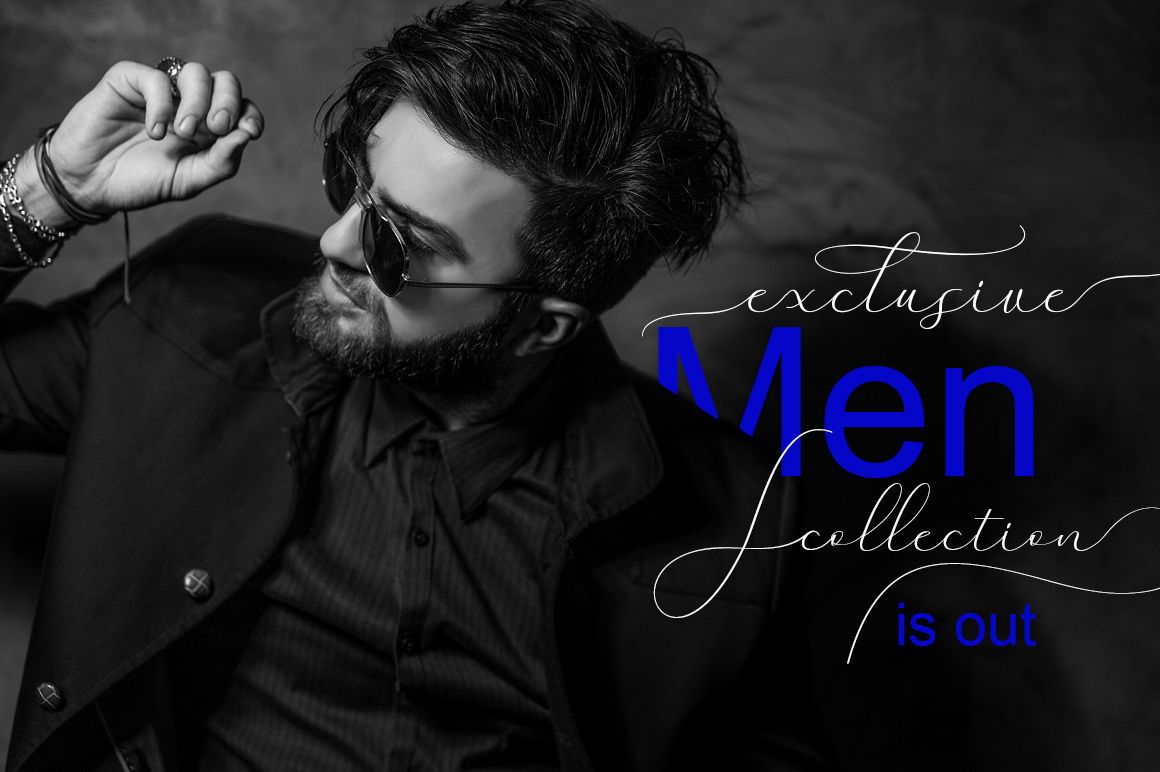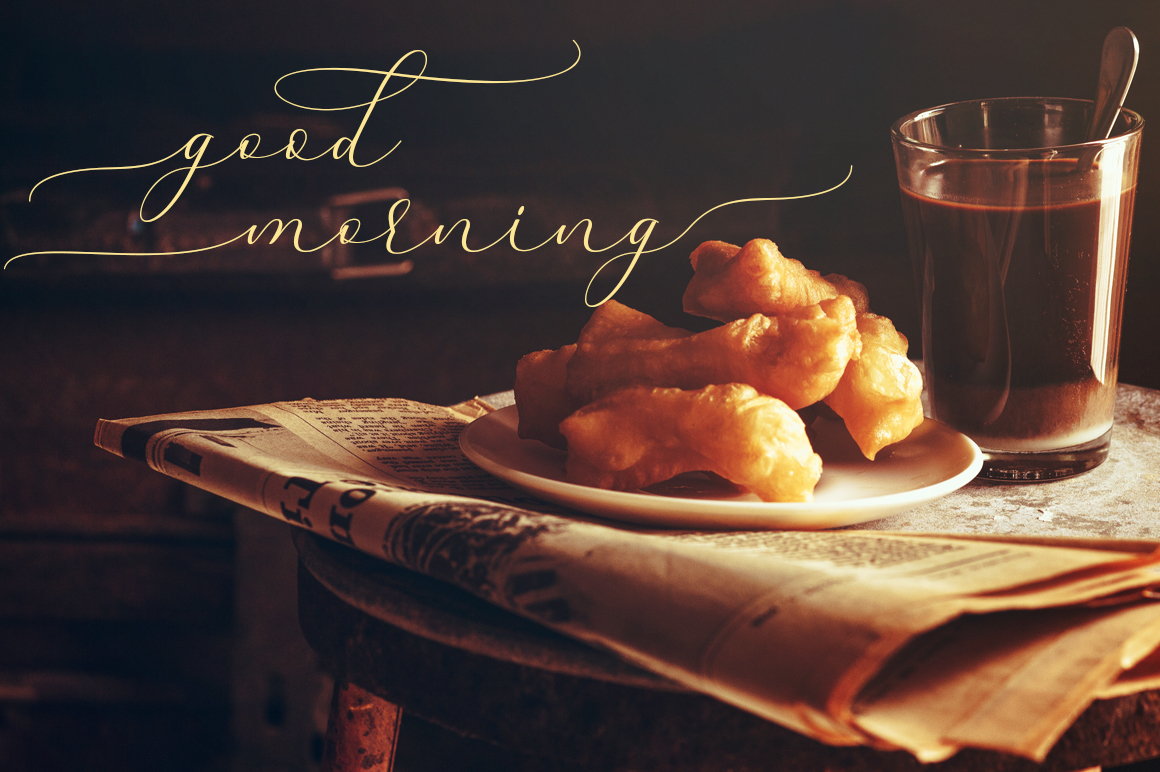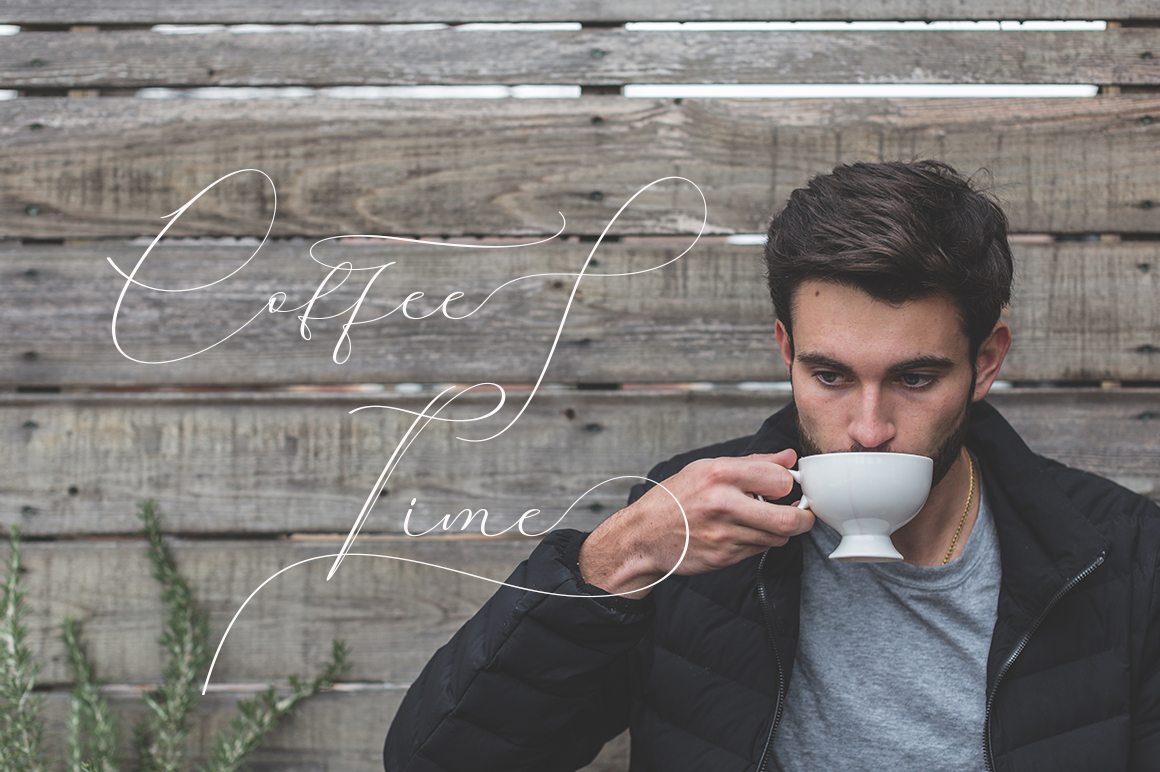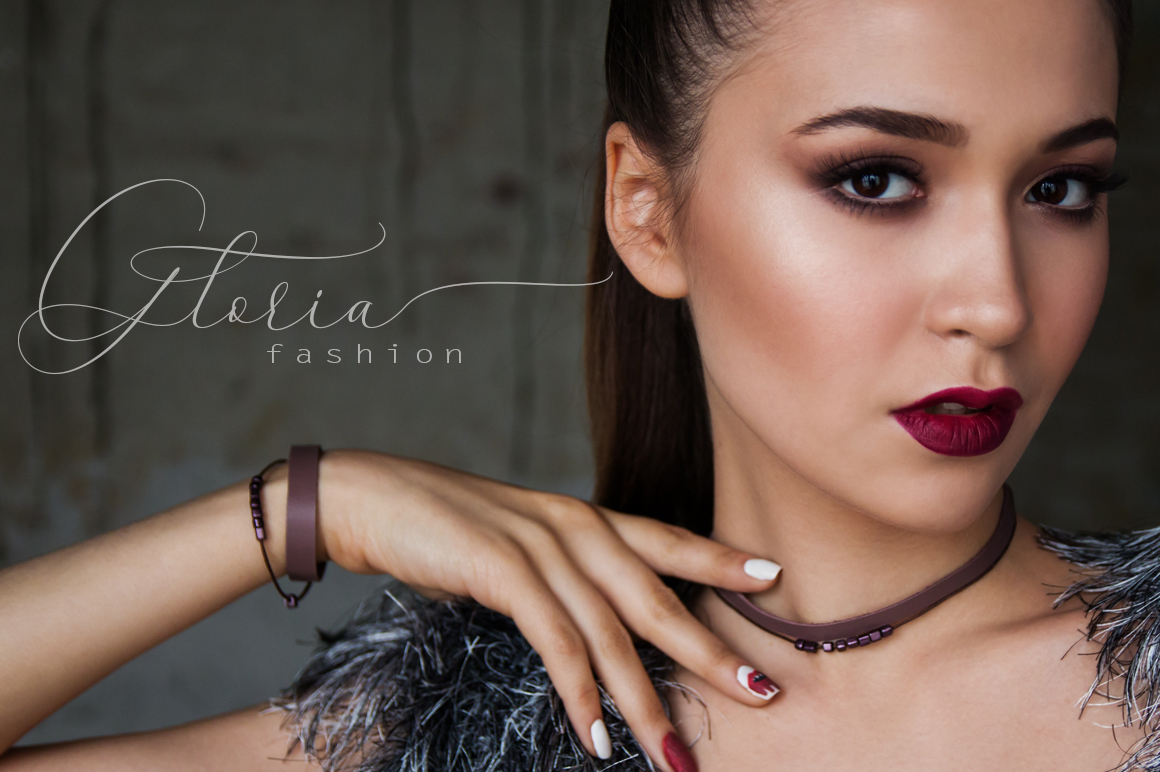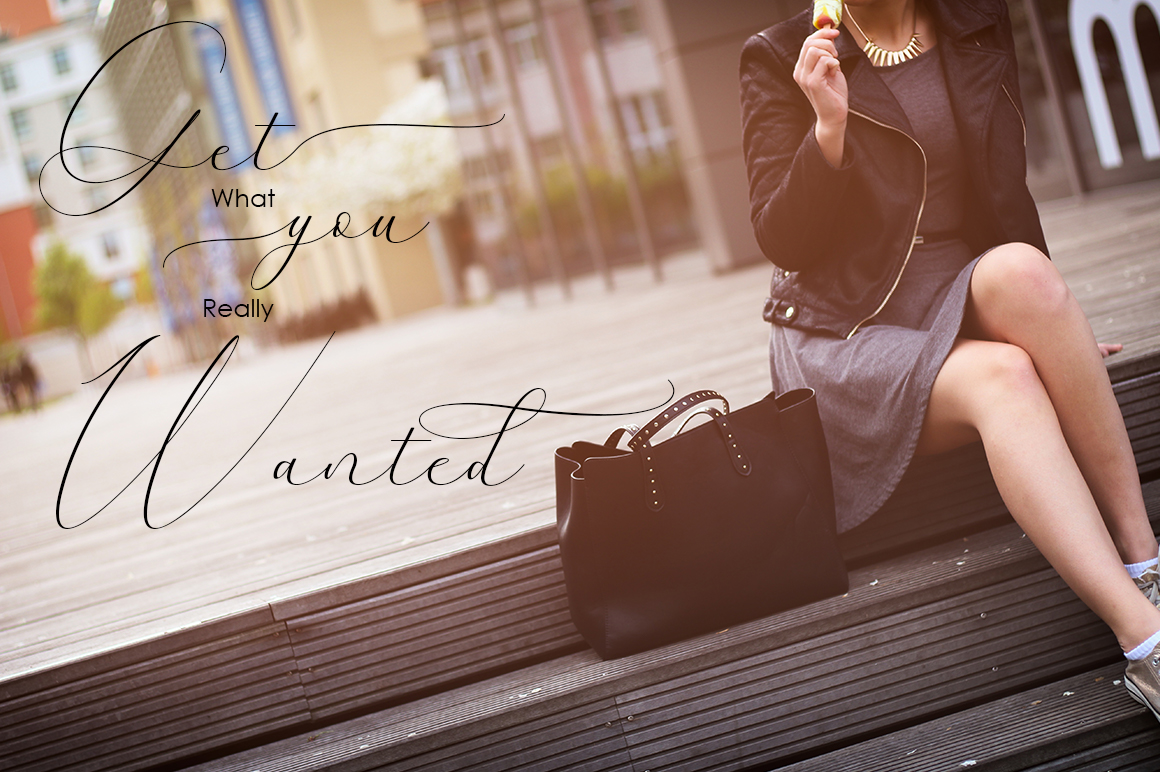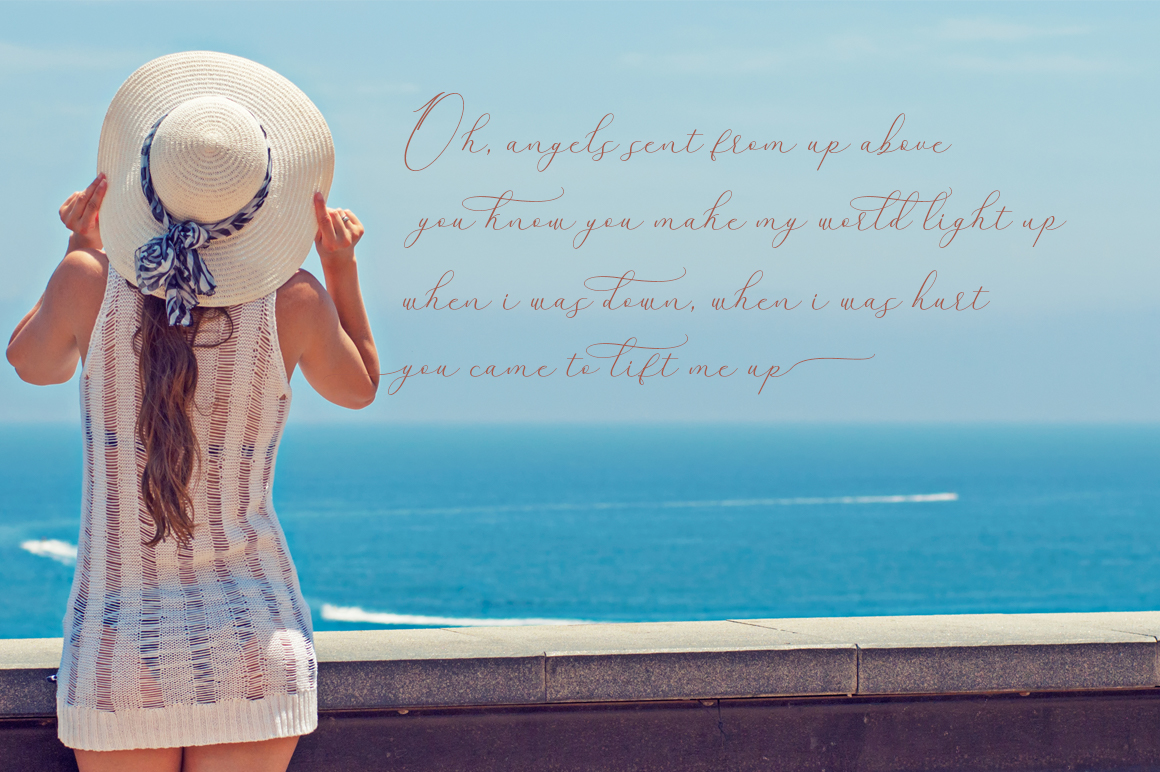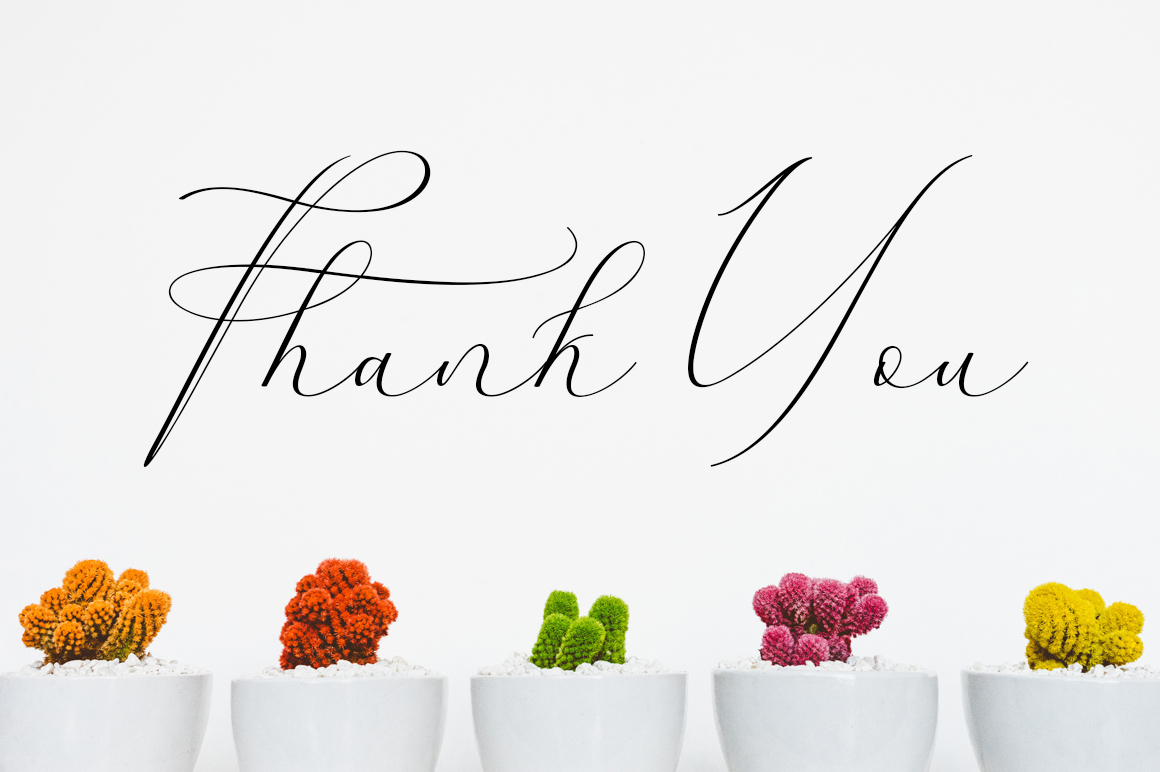
Amalyara Font
About Amalyara Font
Amalyara is a great and thin script font in a delicate handwritten style. This gorgeous font is demanding of attention, and will give an elegant touch to your designs and creative projects.